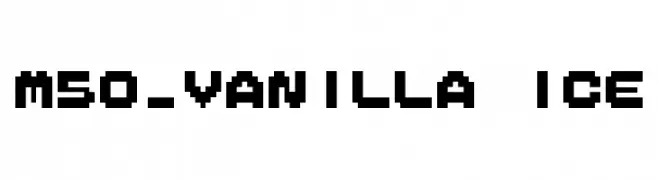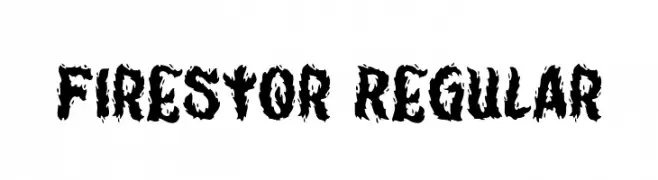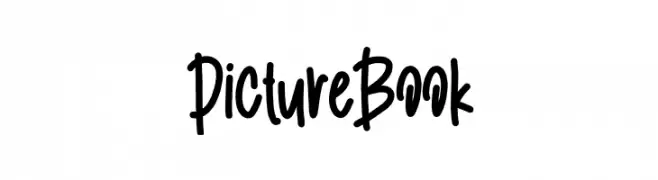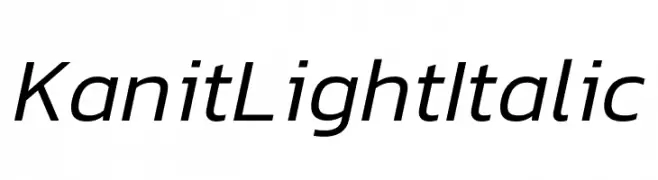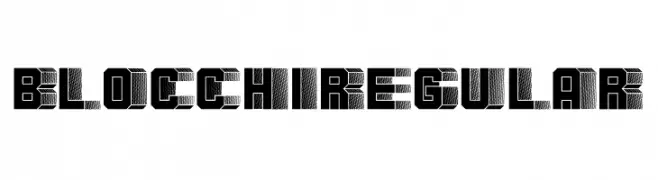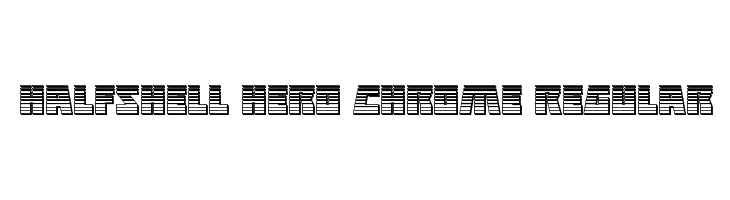
A bold, gothic-style font with sharp, angular edges and a distressed look.
A bold, pixelated font with a retro digital aesthetic.
A bold, geometric font with a pixelated, retro digital style.
A bold, fiery font with jagged, flame-like edges for dramatic impact.
Tall, playful handwritten font with a casual, whimsical style.
A sleek, modern, and slightly italic font with a clean and uniform design.
A playful, handwritten script font with a casual and flowing style.
A bold, three-dimensional font with a blocky, industrial design.
An elegant, flowing script font with interconnected letters and a sophisticated style.